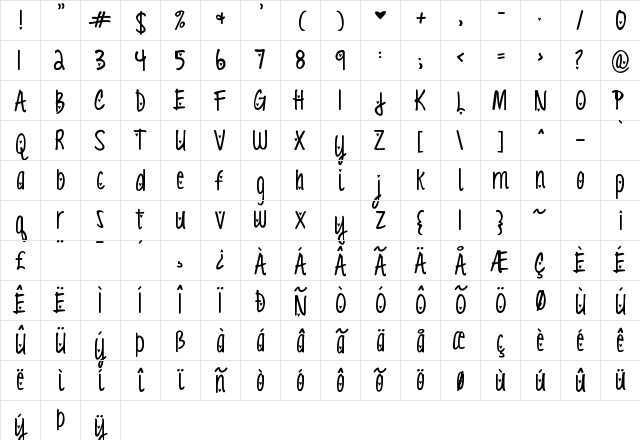
Complete KG Love You Through It 2 Regular glyph index. Displaying only characters natively supported by KG Love You Through It 2 Regular font.
KG Love You Through It 2 embraces imperfection - its rough, textured character adds raw authenticity to designs that want to feel lived-in and unconventional.
Pro Tip: Use KG Love You Through It 2 at larger sizes where the texture and irregularity of each letterform can be clearly seen - it loses its character at small sizes.